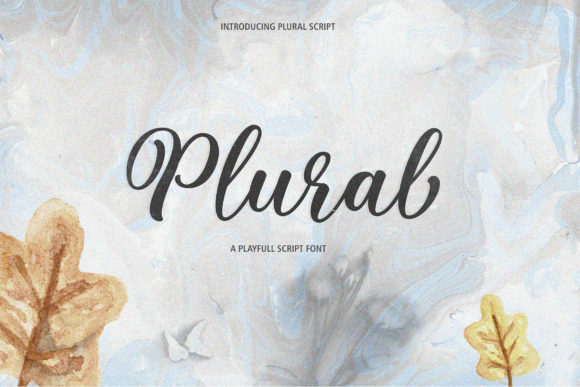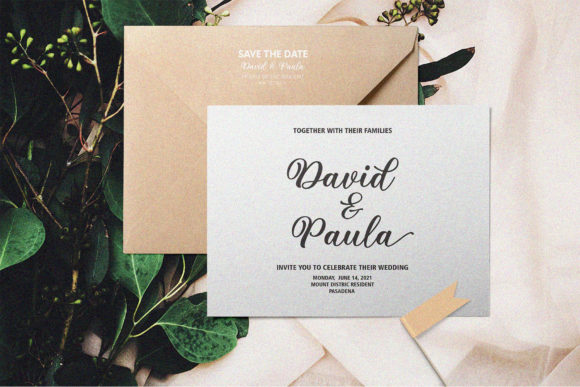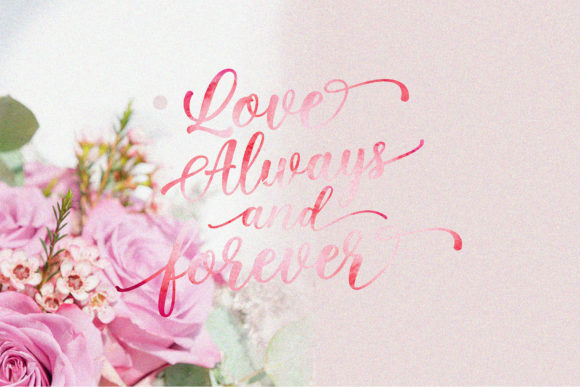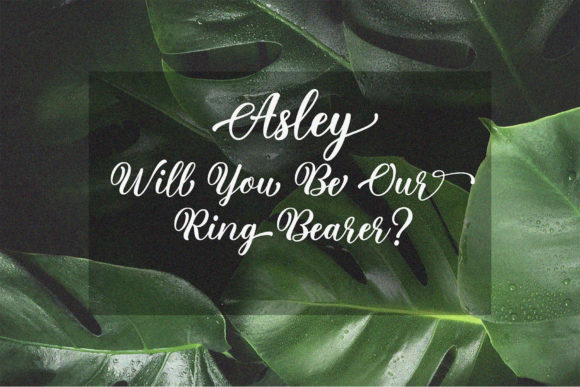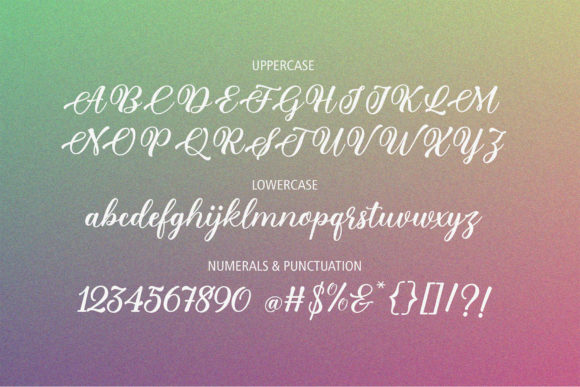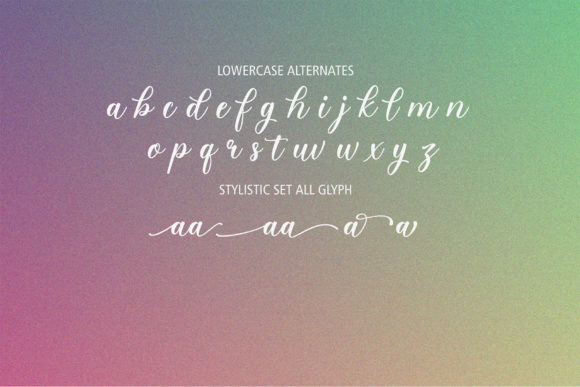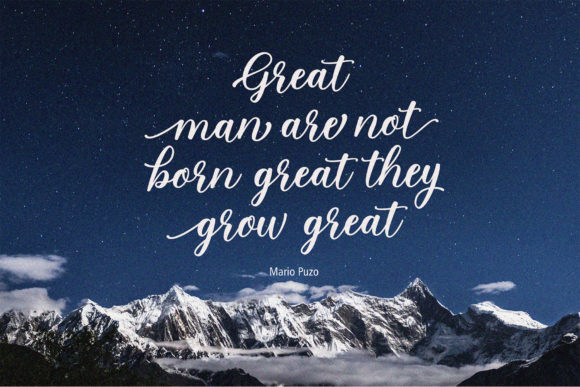
Plural Script Font
About Plural Script Font
Get the latest collection of Calligraphy Plural Script font models that you can get now! With a variety of updated calligraphy hands with special characters that have been given a combination of fantasy and handwritten ink. This font will look beautiful in all designs, including Wedding designs, branding materials, blog titles, quotes and invitations, business cards, and so much more.